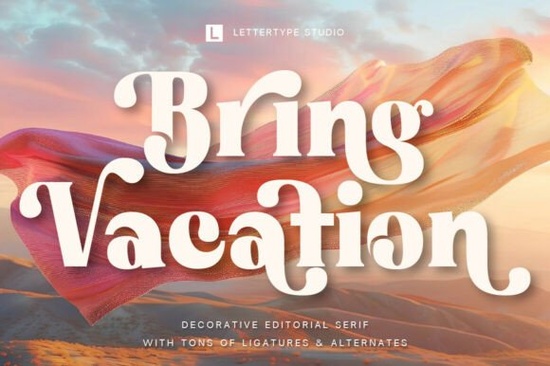
If you're looking for a serif font that feels both nostalgic and fresh something that adds quiet confidence to a wedding invitation, subtle drama to a book cover, or refined charm to boutique packaging you’ll likely enjoy Bring Vacation Font. It’s not a flashy display typeface built for shouting; instead, it’s a thoughtful, editorial serif with soft curves, expressive ligatures, and terminals that flow like handwritten calligraphy. Designed with care for real-world use, it balances decorative detail with readability so it works just as well at 24pt on a magazine masthead as it does at 72pt on a poster.
When does Bring Vacation work best?
This font shines in contexts where tone and personality matter more than neutrality. Think: a small-batch candle brand wanting warmth without cliché, a self-published novelist seeking elegance on their cover, or a stationery designer crafting save-the-dates that feel personal and intentional. Its vintage-inspired rhythm pairs naturally with textured papers, muted palettes, and minimalist layouts not because it’s “trendy,” but because its proportions and spacing support clarity and calm.
It’s especially strong for projects where typography carries emotional weight: wedding suites, literary journals, artisanal product labels, and boutique storefront signage. Unlike many decorative serifs, Bring Vacation includes a full set of standard ligatures and alternate characters so you can fine-tune letter combinations (like “fi”, “fl”, or “ct”) without switching fonts or manually adjusting kerning.
How does it compare to other serif fonts on Creative Fabrica?
If you’ve used Wedding Collection Font, you’ll notice Bring Vacation shares its romantic sensibility but with more editorial restraint and less ornamental flourish. Where Wedding Collection leans into script-like flourishes, Bring Vacation keeps its feet grounded in classic serif structure.
For designers who love the delicate balance of Elora Maison, Bring Vacation offers a slightly bolder presence and more rhythmic contrast between thick and thin strokes. And if you appreciate the quiet confidence of Geista Mond, you’ll find Bring Vacation shares its attention to terminal shape and spacing but with a softer, more organic cadence.
Compared to Solguse, which has a crisp, modernist lean, Bring Vacation feels more tactile and human like ink pressed gently into paper rather than laser-cut from vector paths.
One practical note: because of its expressive terminals and subtle stroke variation, Bring Vacation performs best at medium to large sizes 16pt and up for body text, and 36pt+ for headlines. At very small sizes (under 12pt), some details may blur on screen or in low-resolution print. That’s not a flaw it’s a sign it was made for impact, not invisibility.
Where can you see it in action?
Real examples help more than descriptions. You’ll find Bring Vacation Font used across Creative Fabrica’s marketplace in mockups for greeting cards, book covers, and wedding stationery. You’ll also see it paired thoughtfully with neutral sans-serifs (like Montserrat or Inter) for contrast never competing, always complementing.
It’s also worth checking out how others combine it with textures: linen overlays, subtle grain, or soft shadows. Because the font itself avoids heavy contrast or sharp edges, it adapts gracefully to layered, tactile design approaches common in print-on-demand shops and handmade branding.
A quick checklist before you download
- You need a serif with personality but not so much that it overwhelms your message.
- Your project involves headlines, titles, or short blocks of text (not long paragraphs).
- You’re comfortable using OpenType features or happy to start simple with the default character set.
- You want something distinct from overused fonts like Playfair Display or Cormorant Garamond, but still legible and professional.
- You’re designing for physical products (invitations, packaging, posters) or high-res digital displays not tiny mobile UI elements.
If those match your needs, Bring Vacation Font is worth trying alongside your current go-to serifs. It won’t solve every layout problem but for the right project, it quietly makes everything feel more considered.